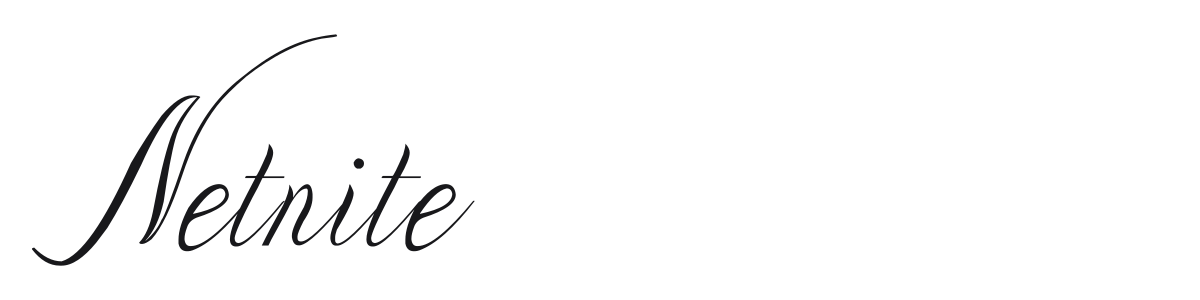
Netnite
Netnite is a high-contrast formal script rooted in copperplate calligraphic tradition, with sweeping connected strokes and elegant looped ascenders. The interplay between hairline upstrokes and bold downstrokes gives it a refined, hand-lettered quality that reads as polished without feeling stiff. Strong at large sizes for wedding stationery, branding, and packaging.